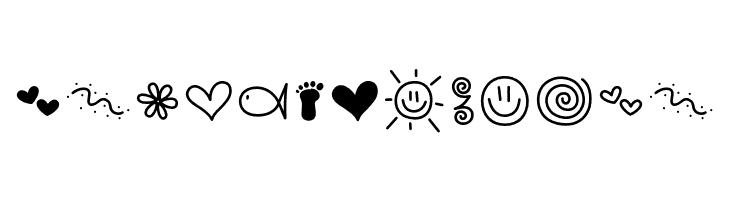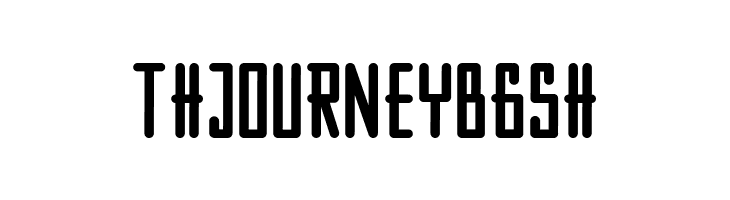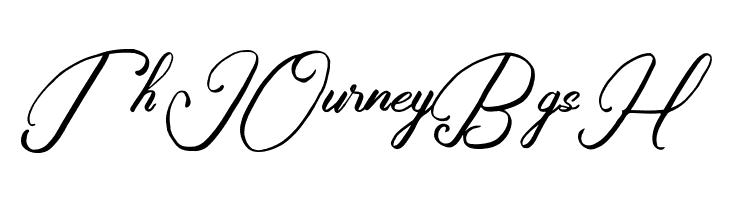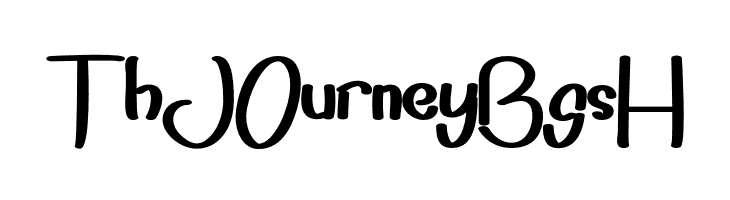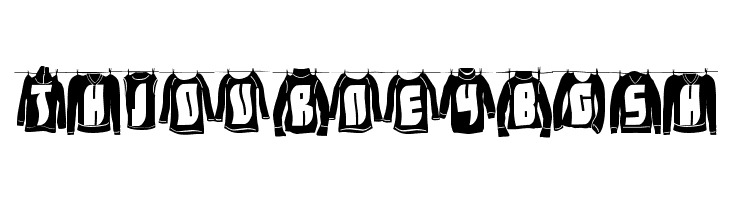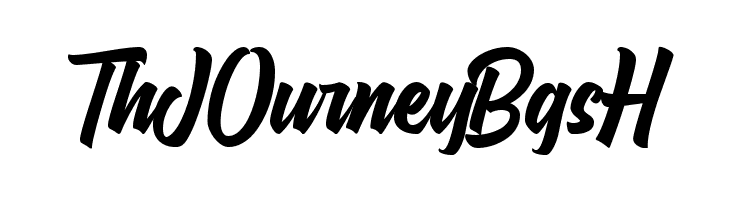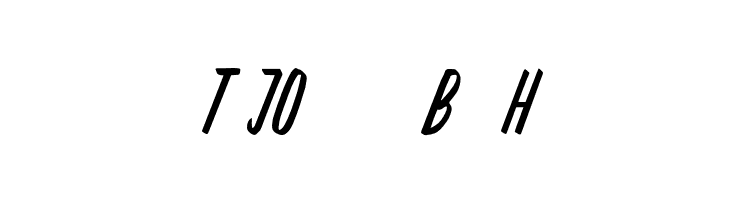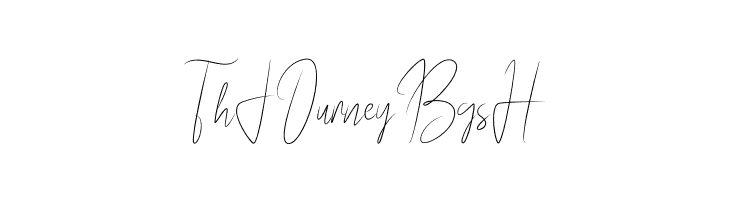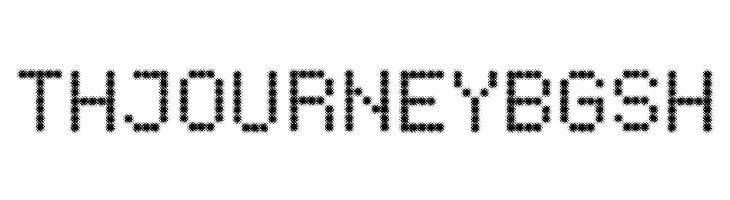
A playful doodle-style icon font with whimsical symbols.
A bold, geometric font with tall, narrow characters and a modern style.
An elegant script font with flowing, cursive lines and ornate uppercase letters.
A playful and whimsical font with rounded, flowing letterforms.
A playful, decorative font with letters shaped like clothes on a laundry line.
A bold, dynamic script font with a fluid, handwritten style.
A bold, dynamic font with angular, sharp edges and a vintage feel.
A graceful and elegant script font with flowing, thin strokes.
A pixelated, digital-inspired font with a retro video game aesthetic.
A bold, rounded, and playful font with a vintage feel.